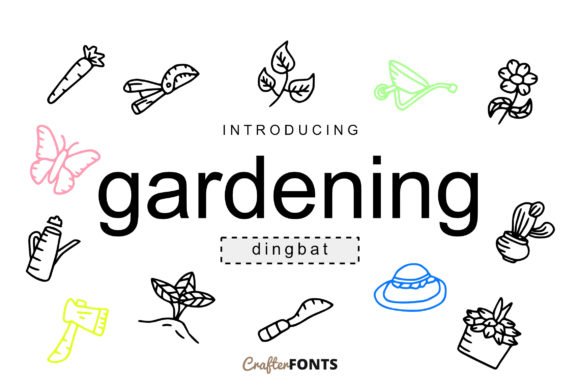
Get Ready to Bloom with Creativity: Introducing Gardening Doodle Font
Have you ever found yourself lost in the simple joy of doodling flowers and leaves in your sketchbook? As a creative, you know that moments like these can spark inspiration and fuel your imagination. For designers, there’s a way to bring that same whimsical touch to your projects – with the perfect tool: Gardening Doodle Font.
This charming dingbats font is a treasure trove of 62 symbols, carefully crafted to bring a touch of greenery to your designs. From logos to ornaments, Gardening Doodle Font is the perfect addition to your creative toolkit. Its versatility and charm make it a valuable asset for designers looking to add a unique flair to their projects.
Gardening Doodle Font Key Features
- Unique Characteristics: The Gardening Doodle Font features a playful, hand-drawn design with intricate details and textures, giving it a whimsical and organic feel.
Gardening Doodle Font Review
Overall, I’m impressed with the whimsical feel of the Gardening Doodle Font. It’s perfect for adding a playful touch to any gardening-themed project ✨. The font’s unique, hand-drawn style evokes a sense of natural charm, making it ideal for garden-inspired designs, labels, and more.
The font’s versatility is another standout feature. It comes in a range of weights and styles, allowing designers to mix and match to achieve the perfect look ✨. Whether you’re creating a vintage-inspired garden sign or a modern gardening blog, this font has got you covered.
- Whimsical, hand-drawn style
- Perfect for gardening-themed projects
- Versatile with multiple weights and styles
- Great for adding a natural, charming feel to designs
- ⚠️ May not be suitable for formal or professional designs
- ⚠️ Some characters may not be easily legible at small font sizes
- ⚠️ Limited international character support
Overall, the Gardening Doodle Font is a delightful addition to any designer’s toolkit. While it may not be perfect for every project, its unique charm and versatility make it a great choice for gardening-themed designs and beyond.
Tips for Getting the Most Out of the Gardening Doodle Font
Use the Gardening Doodle Font to create whimsical and playful designs for gardening-related projects, such as:
– Invitations to gardening events
– Labels for plant pots and seedlings
– Social media graphics for gardening enthusiasts
– Educational materials for gardening workshops
The Gardening Doodle Font is ideal for projects that require a touch of whimsy and personality. Some common use cases include:
– Gardening blogs and websites
– Gardening social media accounts
– Gardening books and magazines
– Gardening-themed merchandise